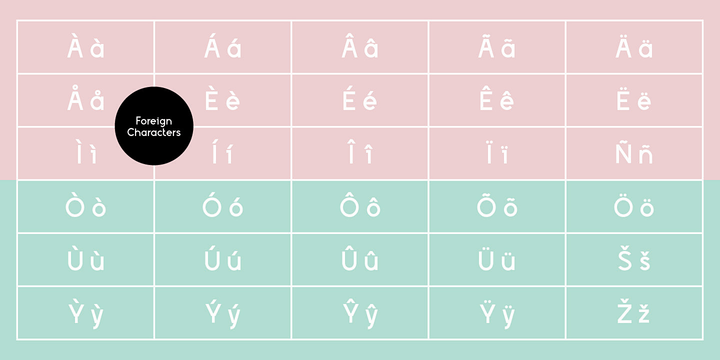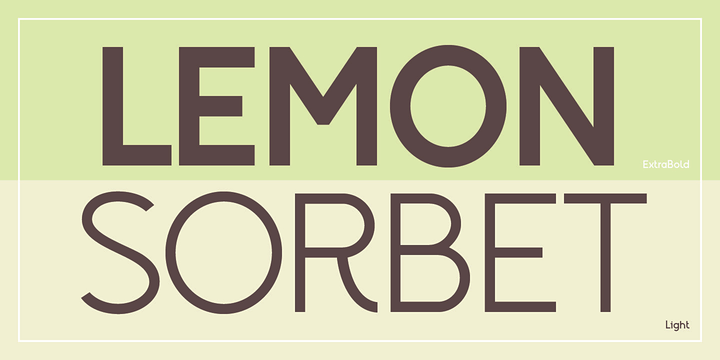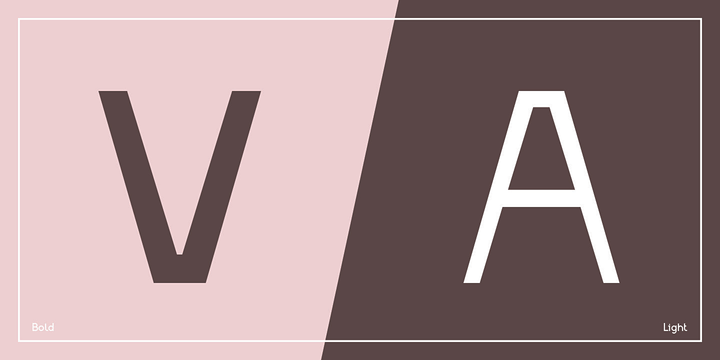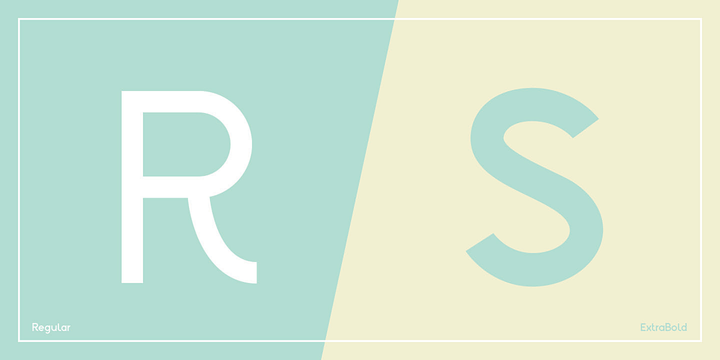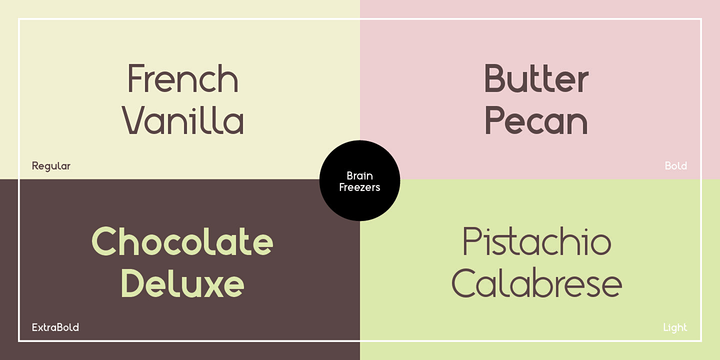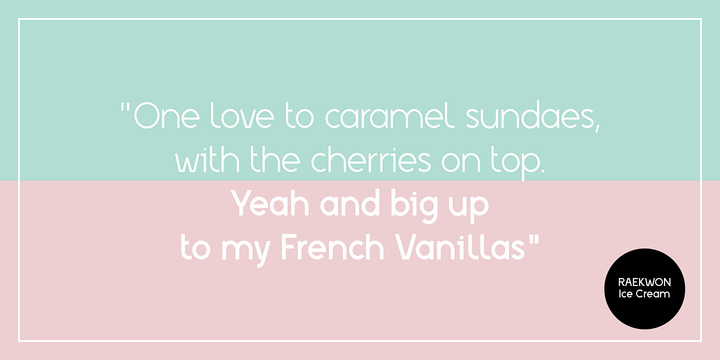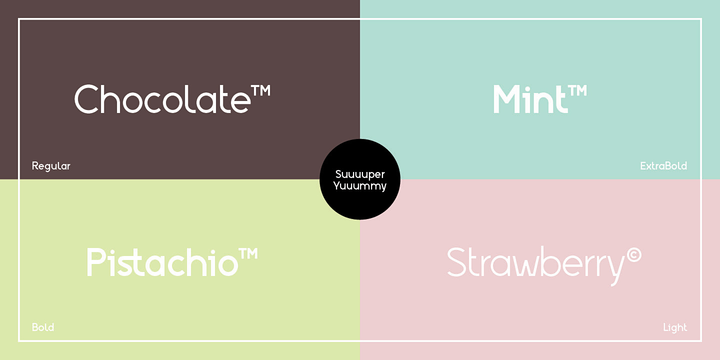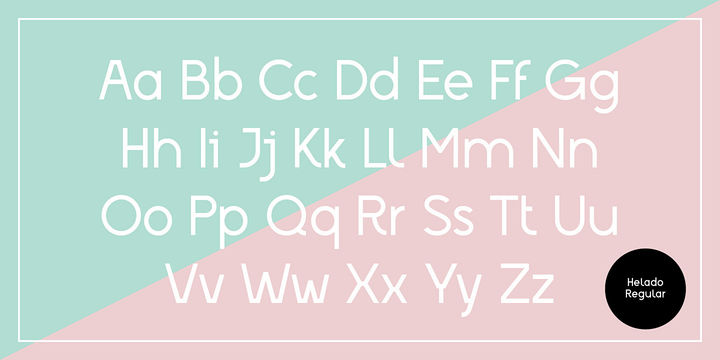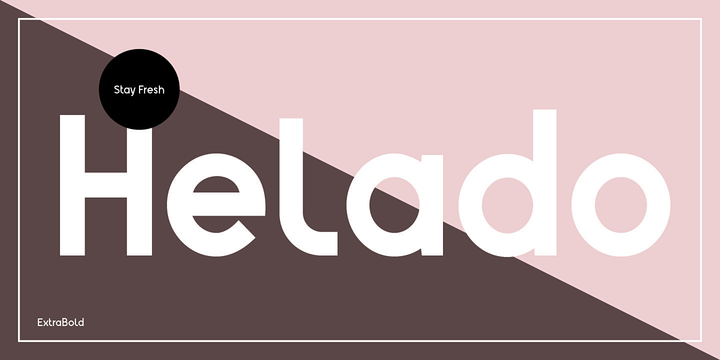
Helado Font Family
Helado is an elegant, modern sans-serif font, based on the idea to work as close as possible on the geometric forms of the circle and the square. Following swiss design classics Helado comes in these weights: LIGHT, REGULAR, BOLD and EXTRABOLD.
Helado might be used as a headline font, for any kind of layout, it might also be transformed into that fashion label logotype you are working on. Have fun!
• Designers: Simon Becker